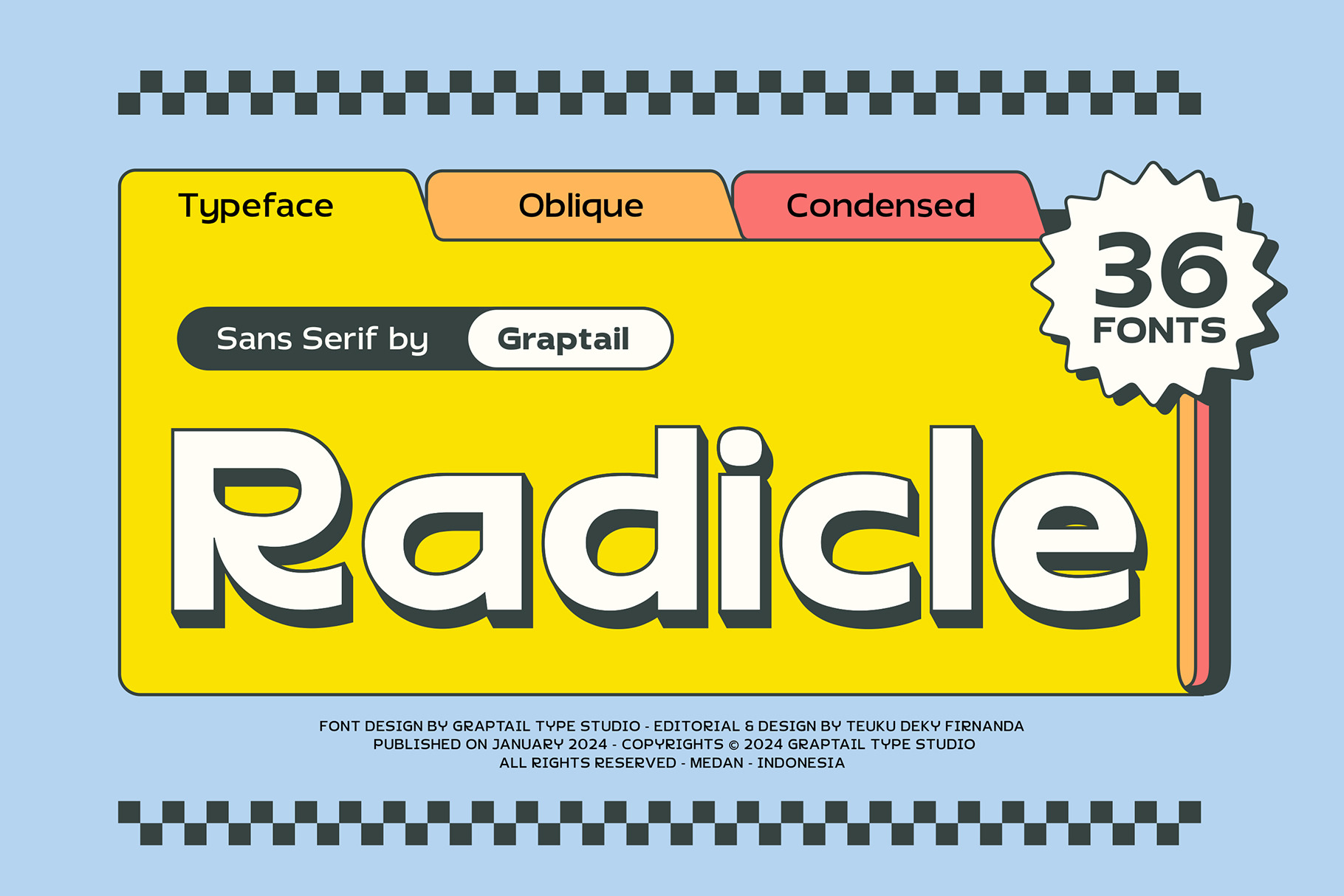
Radicle - Font Family
Introducing Radicle - Font Family a captivating sans serif font family with a total of 36 carefully crafted variations designed to infuse a unique retro touch into your designs. This font seamlessly combines the elegance of modern sans serif typography with a nostalgic nod to the retro era, creating the perfect blend of past and present.
With a diverse set of 36 included fonts, Radicle - Font Family offers maximum flexibility to meet all your design needs. Each font variant has been thoughtfully created to evoke distinctive impressions, ranging from bold expressions to subtle softness, suitable for various creative projects.
Every letter in Radicle - Font Family boasts clean lines and geometric shapes reminiscent of classic typographic designs from the 70s and 80s. The entire font family conveys a strong message, radiating confidence and timeless style.
Enhanced with a perfected retro touch, each font in this family carries warm undertones and a soft color palette, delivering vintage vibes without sacrificing modern sharpness. Whether you're designing a poster, flyer, or any other graphic project, Radicle - Font Family will add a captivating classic touch.
Radicle - Font Family is tailored to meet the needs of graphic designers seeking a sans-serif font with classic appeal that withstands the test of time. With the diversity and flexibility offered by this font family, you can effortlessly create unique and visually striking designs, with an unforgettable retro flair.